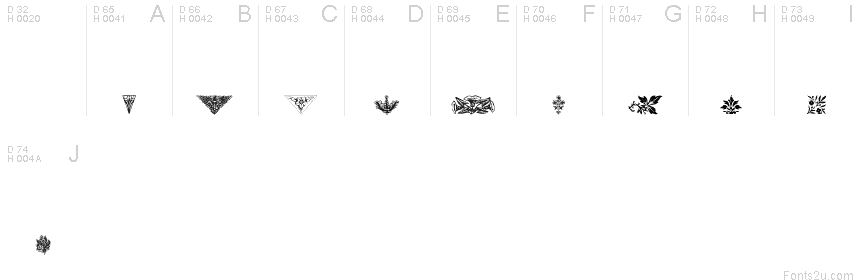
Destiny's Floral Dings is a free botanical dingbat font of cut-paper ornaments. Its collection ranges from compact floral emblems and triangular bouquets to curling leaves, blossoms, insects, and animal figures.
Garden shops, florists, and handmade soap brands can use these motifs on packaging, signs, and seasonal promotions. The symbols can replace ordinary labels with illustrated badges or become repeating patterns tied directly to plants and garden life.
Destiny's Floral Dings